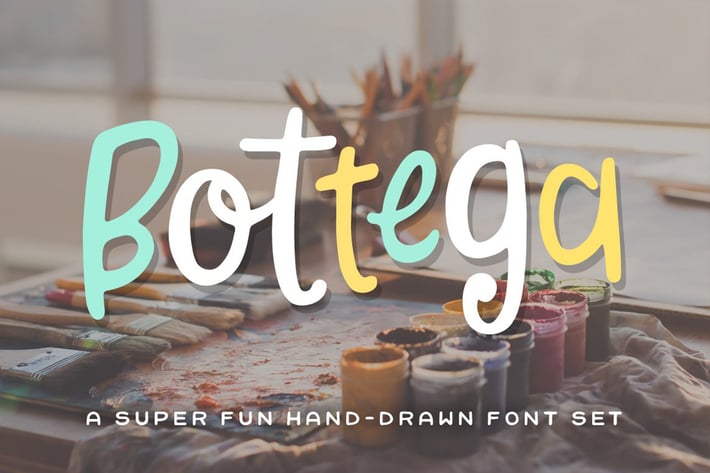
Bottega Font
Bottega is a super fun, hand-drawn font that comes with three sets of lowercase and uppercase letters giving you six variations of each character. You can mix and match with all three sets of characters so that your designs can really get that “hand-drawn” feel.